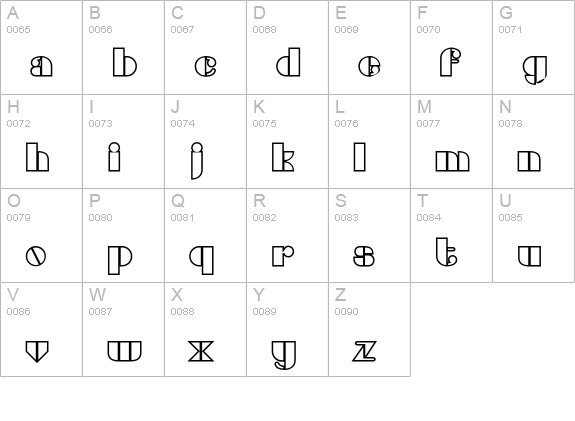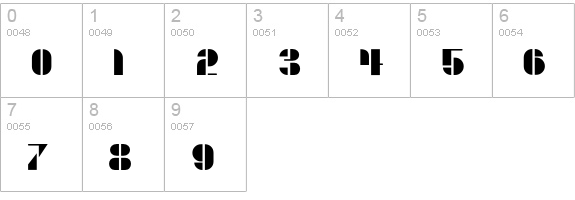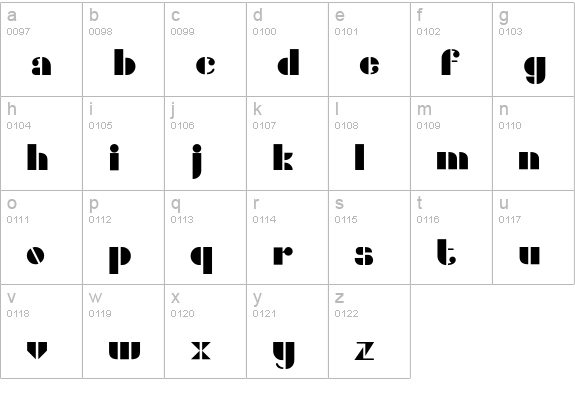
Densmore Font Details
Densmore font is a versatile and elegant typeface that exudes sophistication and modernity. With its clean lines and distinctive letterforms, this font is perfect for a wide range of design projects, from branding to editorial layouts. The sleek and stylish appearance of Densmore font makes it a popular choice for designers looking to add a touch of class to their work. The best part about Densmore font is that it is completely free to download at FontsMarket.com. This means that you can access this stunning font without any cost, making it a valuable resource for any designer or creative professional. Whether you're working on a personal project or a client commission, Densmore font is sure to elevate your designs and leave a lasting impression. Don't miss out on the opportunity to enhance your creative projects with the beautiful Densmore font. Download it for free today at FontsMarket.com and see for yourself why this font is a must-have in any designer's toolkit.